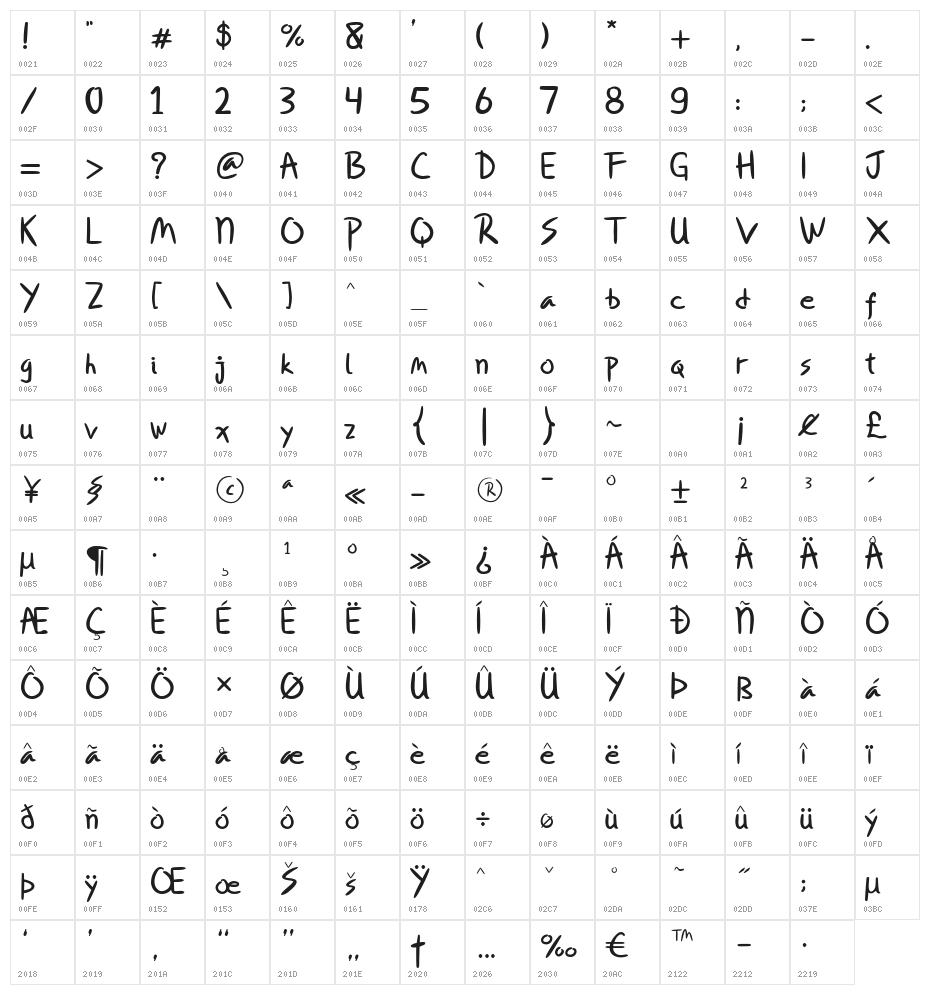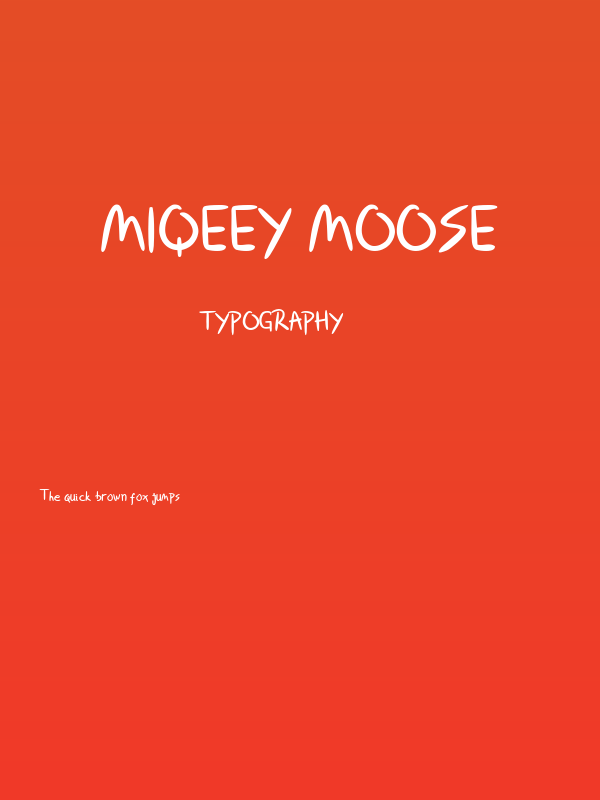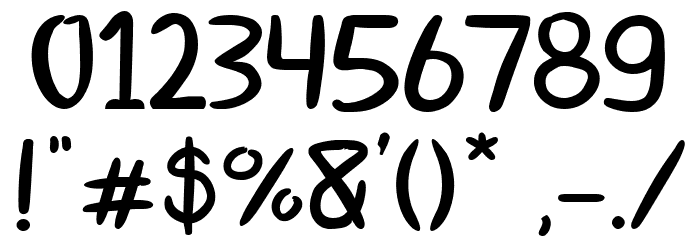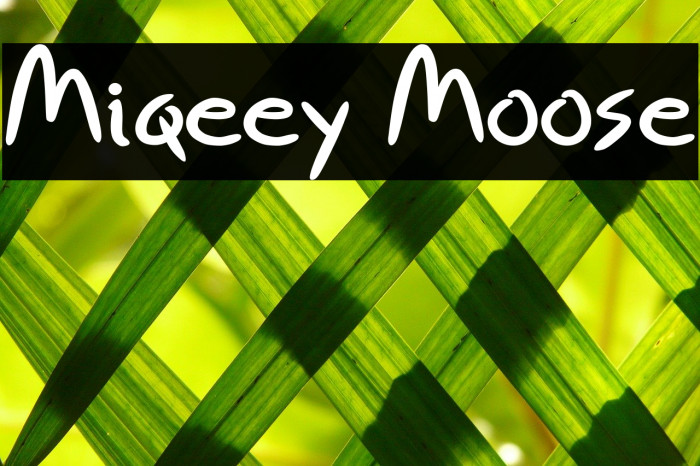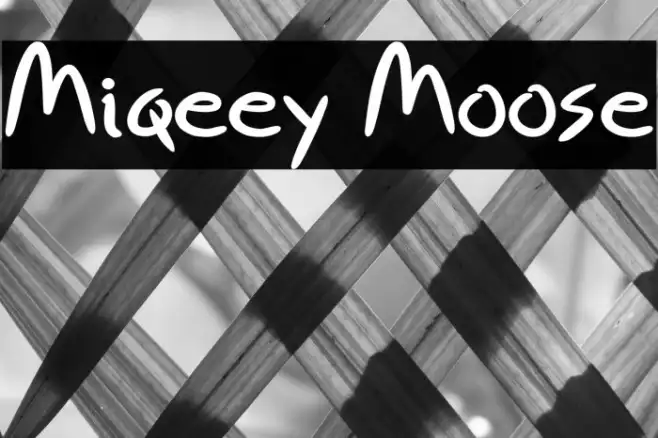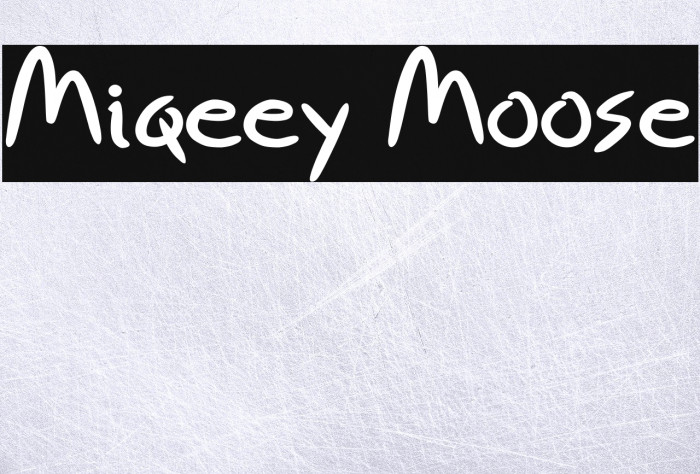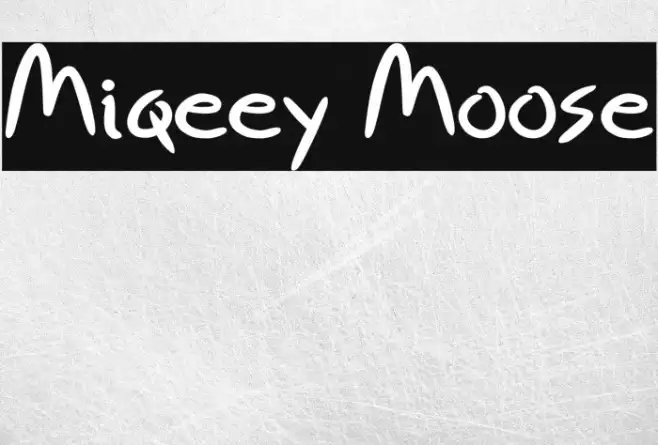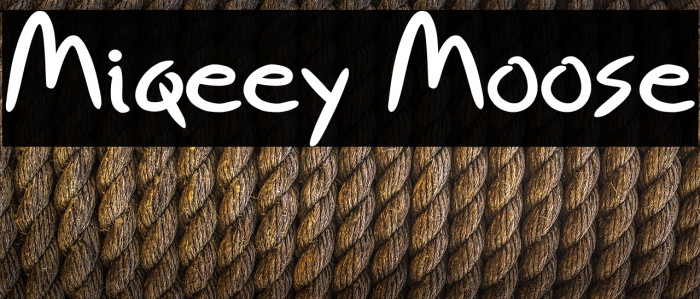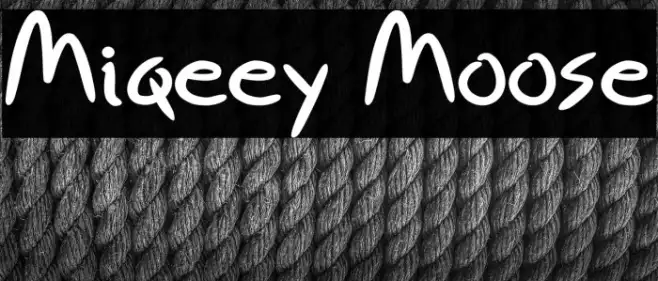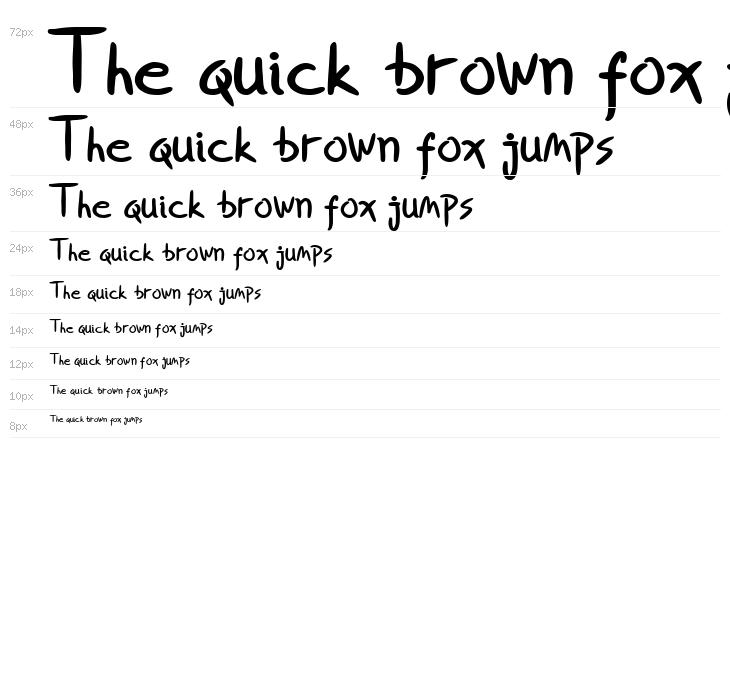
Miqeey Moose Font
Miqeey Moose Description
This playful and whimsical font features a handwritten style with a casual and friendly appearance. The letters are slightly irregular, adding a touch of personality and charm. The uppercase and lowercase characters maintain a consistent flow, with rounded edges and smooth curves. The numbers and special characters complement the overall style, making it versatile for various creative projects. Its informal and approachable design makes it suitable for fun and engaging content.